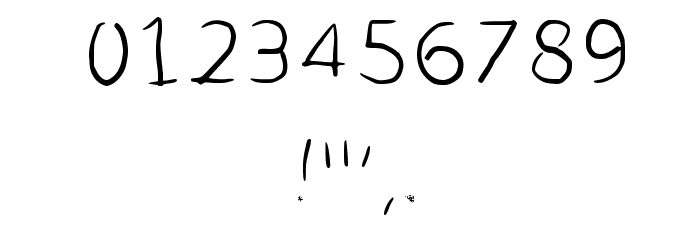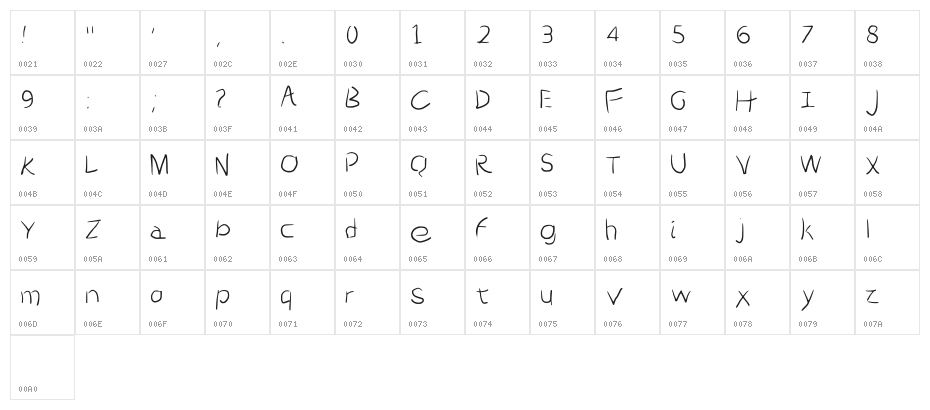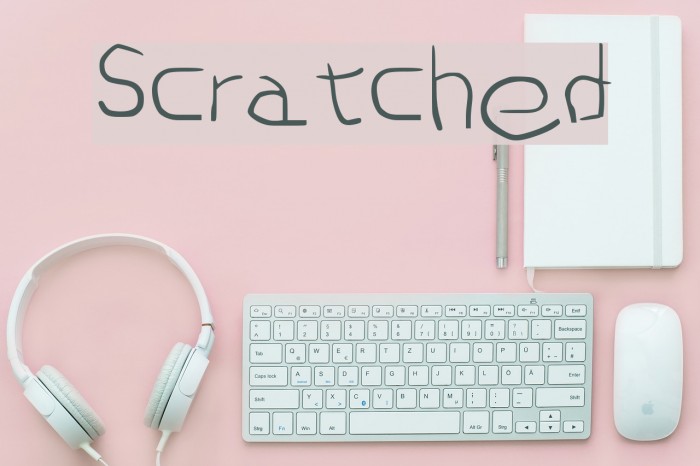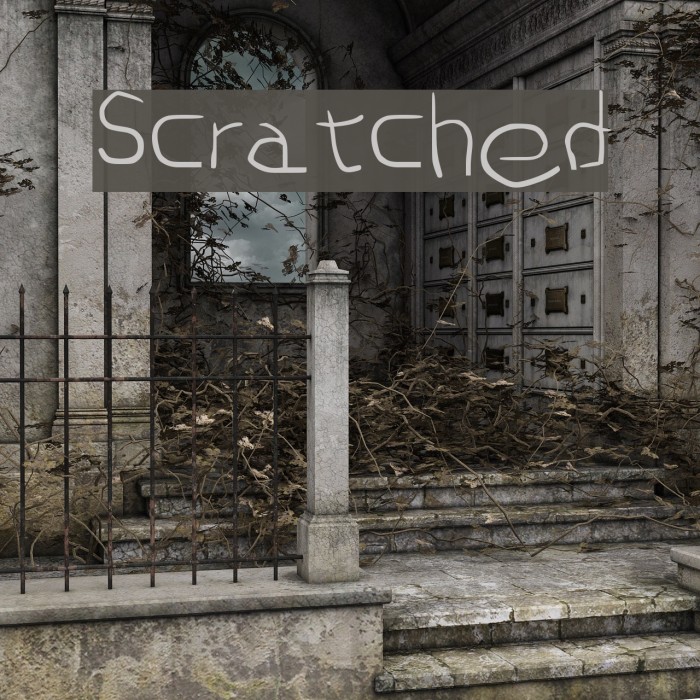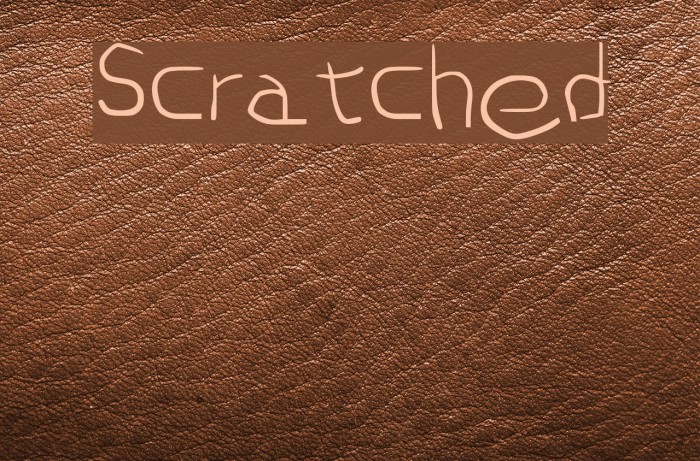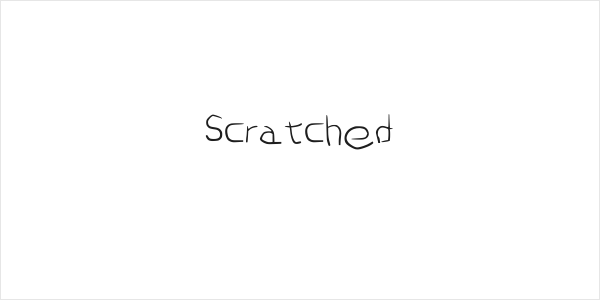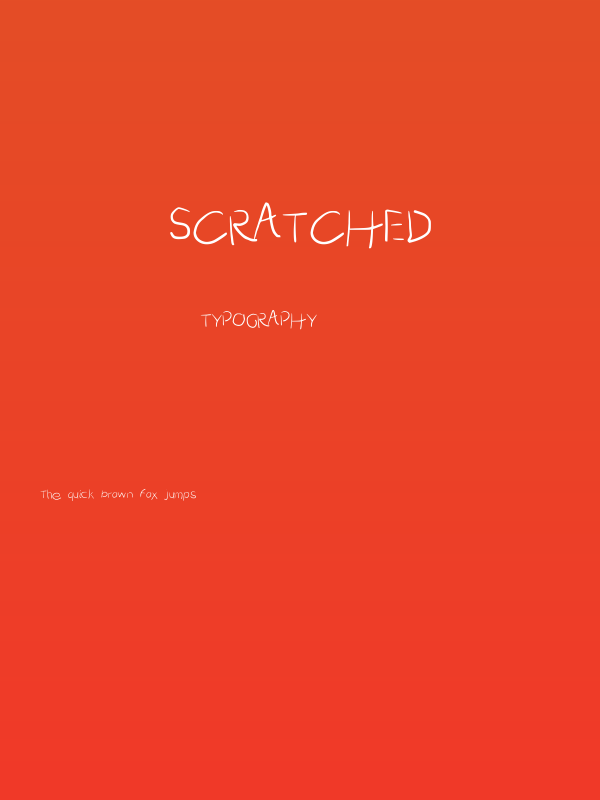
Scratched Font
Scratched Description
This font features a playful and whimsical design, characterized by its uneven and hand-drawn appearance. The letters have a casual, informal style with irregular strokes that give it a unique, artistic flair. The uppercase and lowercase letters maintain a consistent style, with slightly exaggerated curves and angles that add to its charm. The numbers and special characters follow the same aesthetic, making the font versatile for creative projects. Its distinctive look makes it ideal for designs that require a personal touch, such as invitations, greeting cards, and artistic posters.
| Use Case | Headlines, Artistic projects, Personal branding |
| Proposed Projects | Ideal for invitations, greeting cards, artistic posters, and creative branding. |